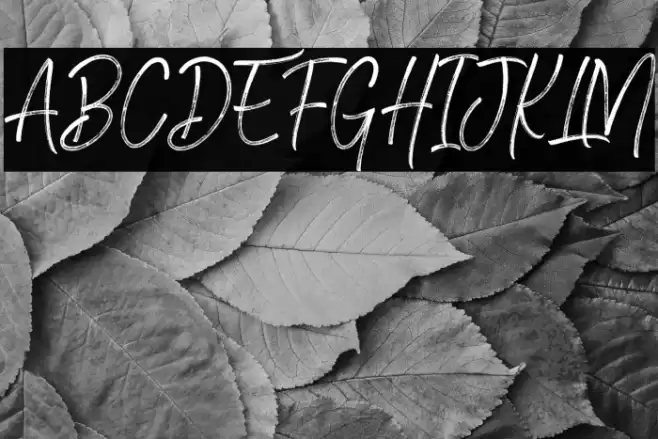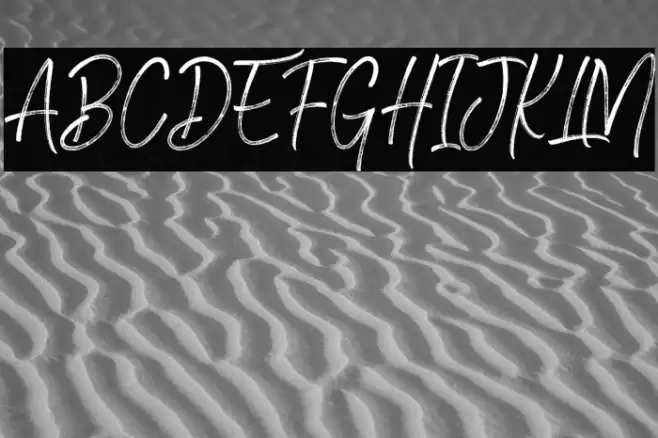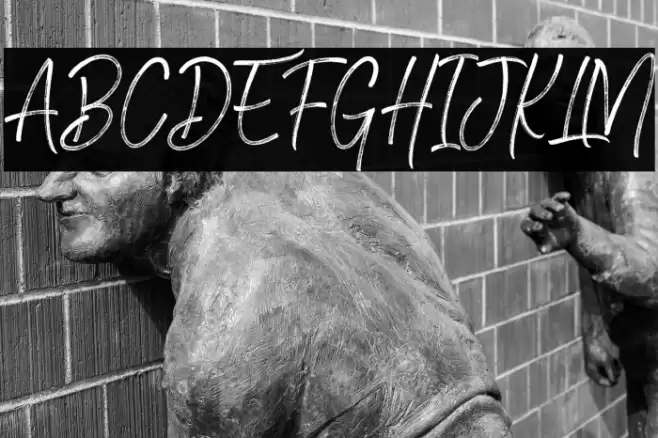
Brownhill Script Font
Brownhill Script Description
This font exudes a dynamic and expressive style, characterized by its flowing script and elegant curves. The uppercase letters are tall and slender, with a slight slant that adds a sense of motion and grace. The lowercase characters are more compact, featuring intricate loops and swashes that enhance the font's decorative appeal. The overall design is reminiscent of hand-drawn calligraphy, offering a personal and artistic touch. The strokes vary in thickness, providing a medium contrast that adds depth and interest to the text. This font is perfect for projects that require a touch of sophistication and creativity.
A dynamic, expressive script font with elegant curves and medium contrast from Uncategorized fonts.